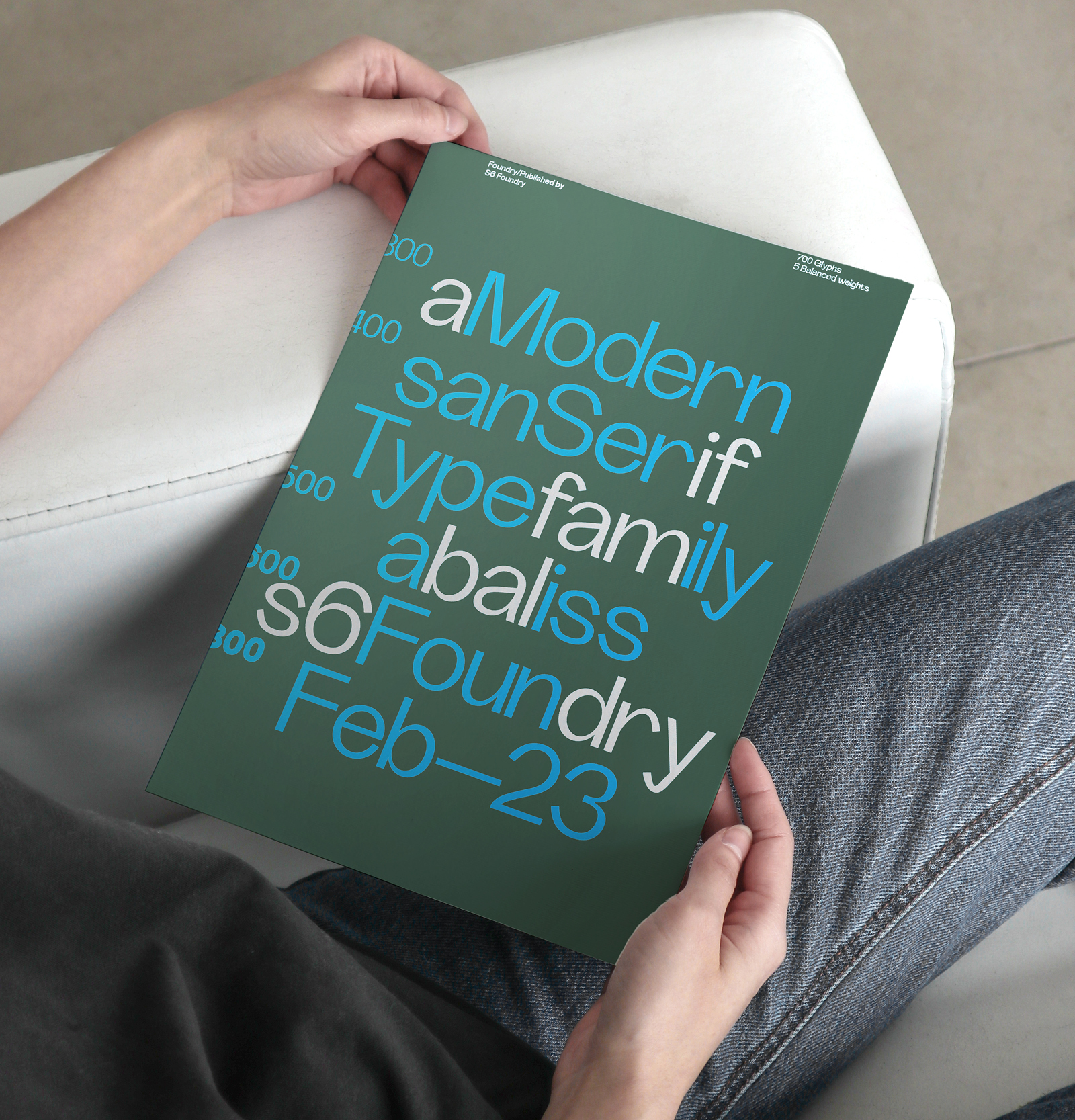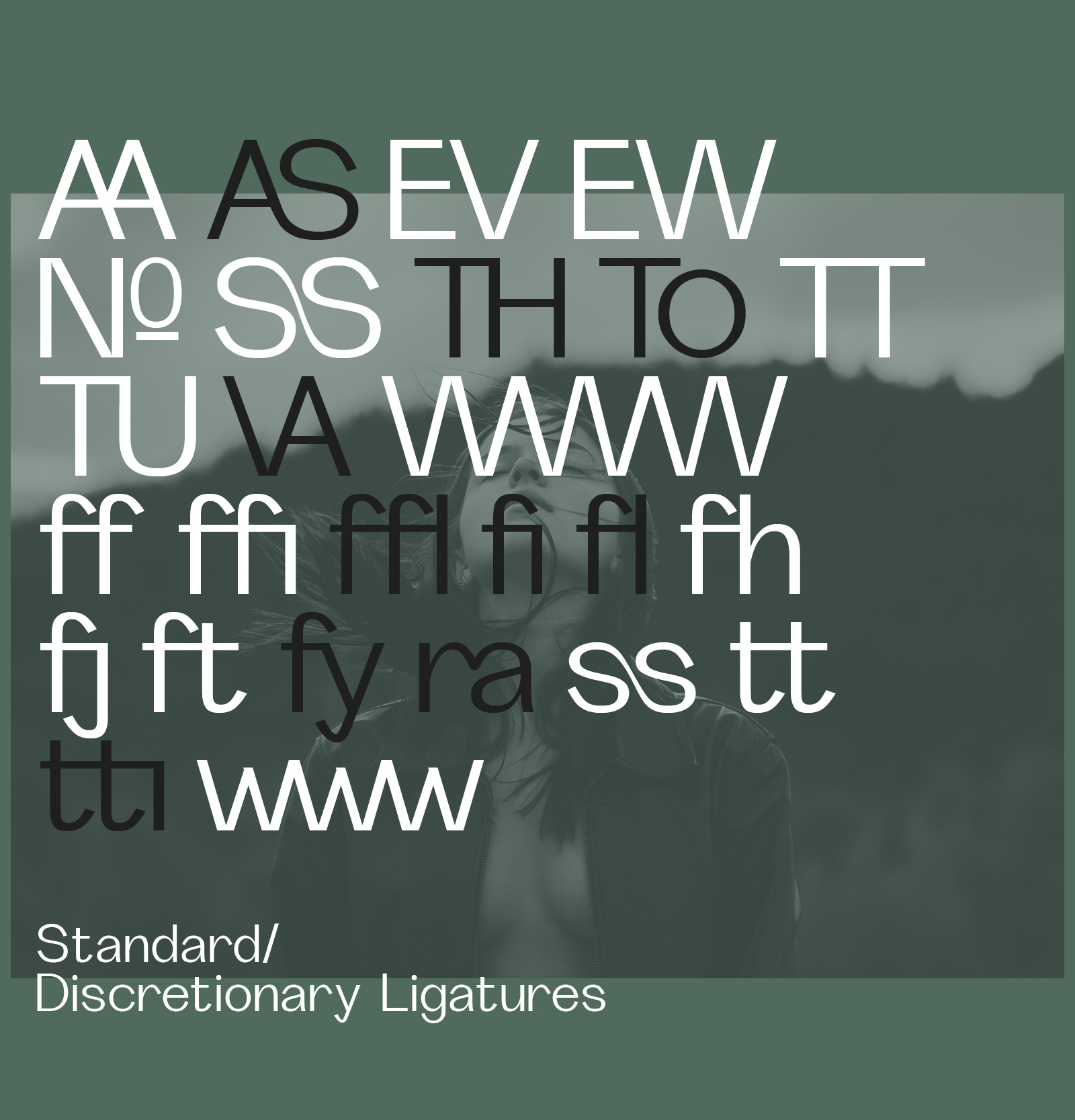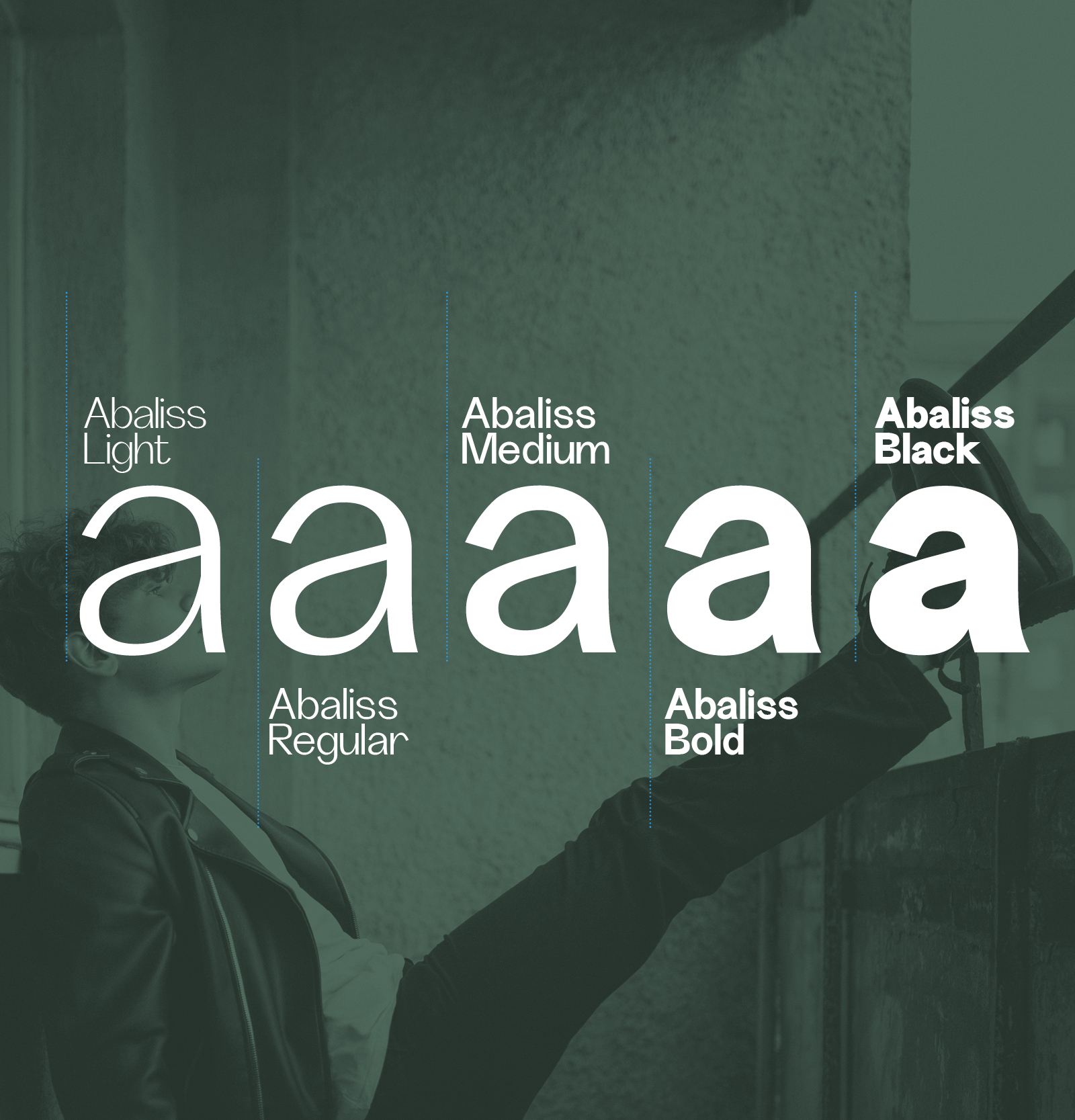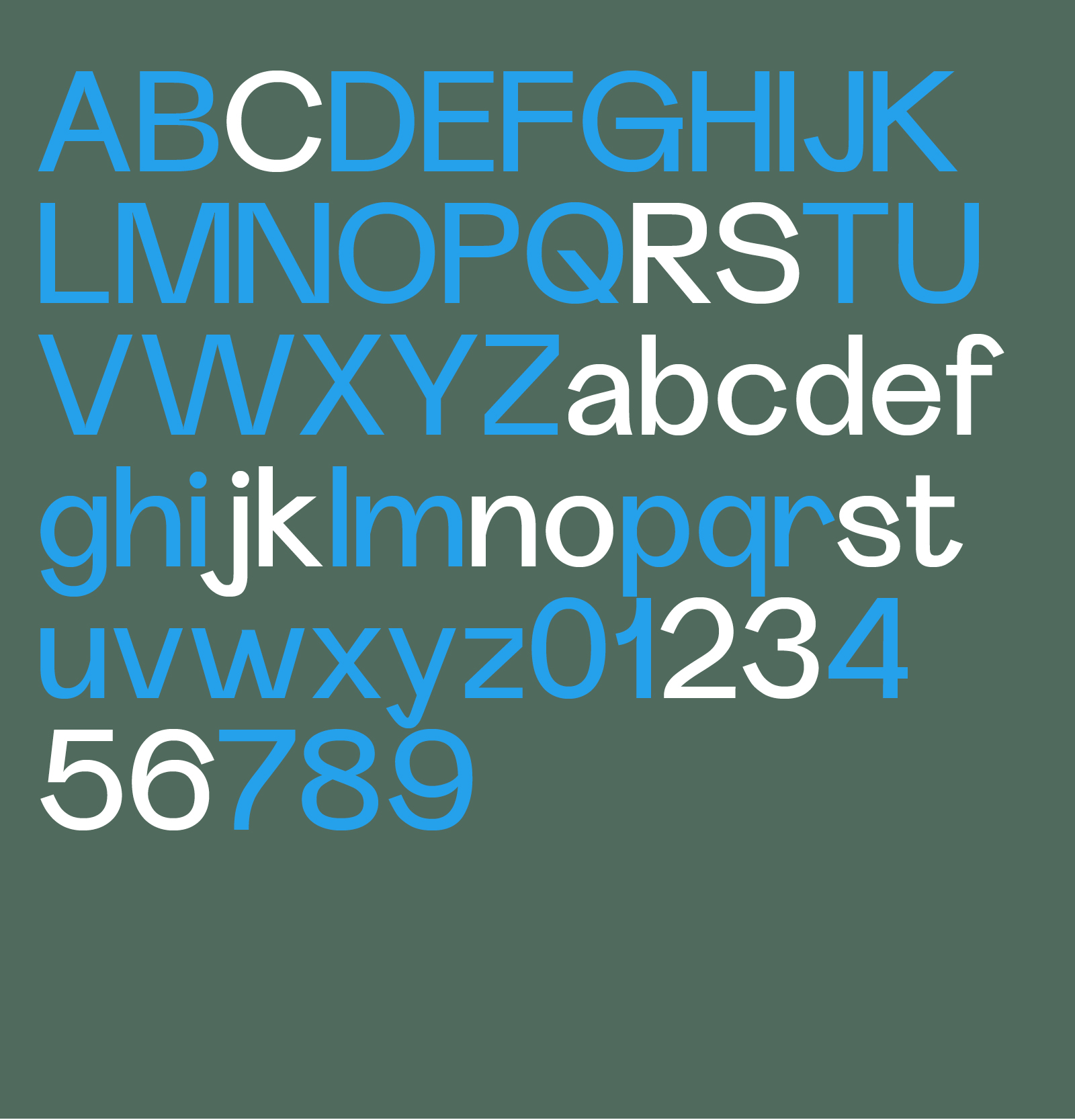
Abiliss Sans is a refined sans-serif family that captures the timeless elegance of modernist design while offering a confident, expressive voice. Rooted in the clarity of Swiss-style typography, Abiliss Sans blends classical proportions with subtly distinctive forms, resulting in a font that feels both familiar and fresh.
Its wide stance and generous spacing, paired with large open counters, lend the typeface exceptional legibility across sizes and platforms. Abiliss’s character is revealed in its nuanced curves and sculpted ductus, where precision meets personality—creating letterforms that are as functional as they are memorable.
While Abiliss Sans appears clean and minimal on the surface, it offers depth and flexibility through a suite of carefully crafted OpenType features. Alternates and stylistic variations allow for tailored visual expression, whether used in editorial layouts, brand identities, or digital interfaces.
Available in a full range of weights with matching italics, Abiliss Sans adapts effortlessly to both display and text applications. From the lightest weights, which exude elegance and airiness, to the boldest styles, which command attention and impact—every cut is engineered for clarity and consistency.
With extensive multilingual support and variable font capabilities, Abiliss Sans isn’t just versatile—it’s built for the demands of modern typography. Whether you’re creating minimalist layouts or expressive brand narratives, Abiliss Sans delivers a unique blend of neutrality and character, making it a dependable workhorse and a distinctive design voice.